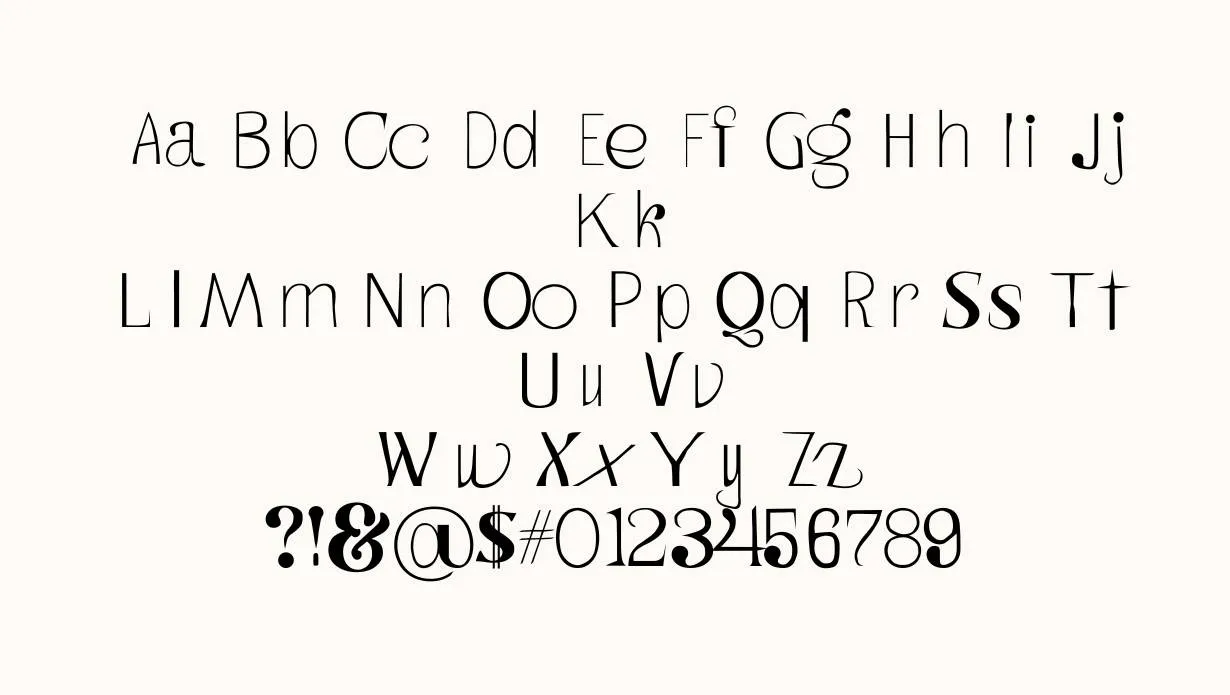
The Traino Font is like a smooth ride in the world of typography. With its sleek characters, it adds a touch of modernity to your designs.
Whether you’re creating a travel-themed poster in Adobe Photoshop or adding a stylish flair to your webpage with CSS, this font effortlessly blends into various design applications, giving your visual journey a sense of fluidity.
| Name | Traino Font |
| Designer | Font Forestry |